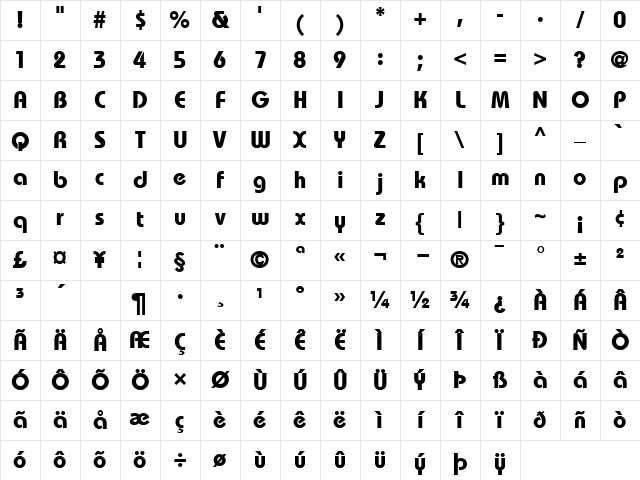
Bauhaus Bold
Design Context for Bauhaus
Bauhaus is a composed and adaptable typeface that performs quietly and consistently across a wide range of design contexts. Its bold stroke weight gives it real presence on the page.
Pro Tip: Use Bauhaus in both headline and body roles to test its range before committing to a single application.